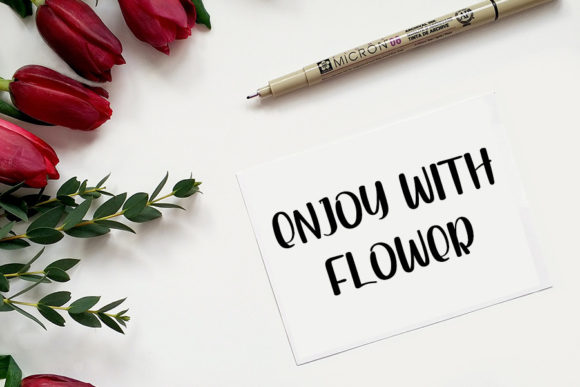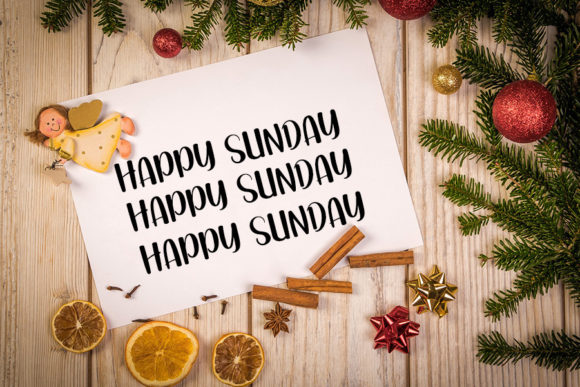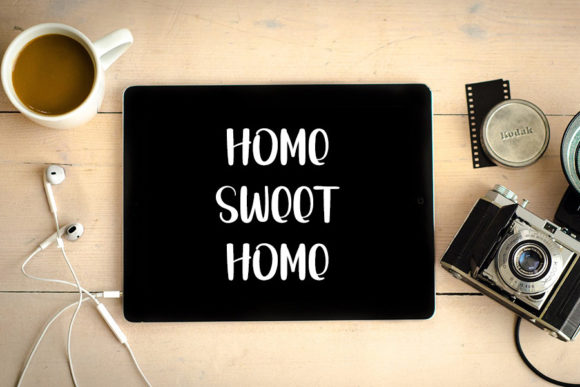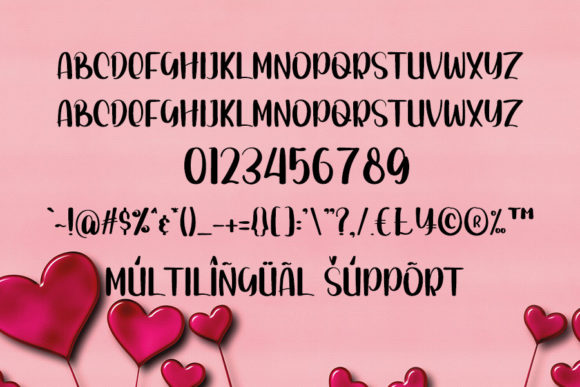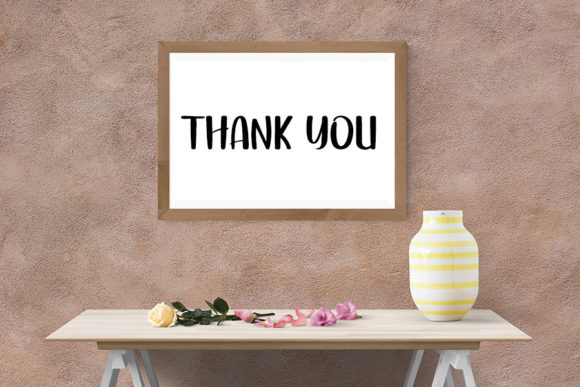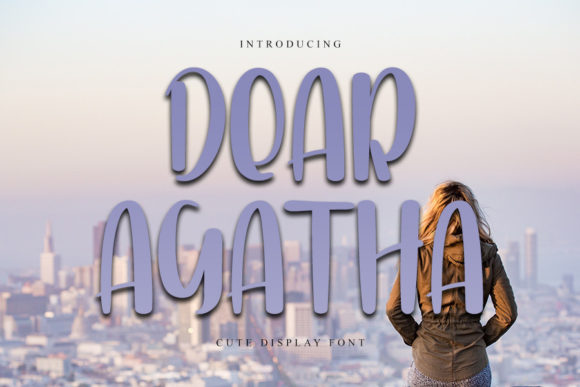
Introducing Dear Agatha Font: The Ultimate Choice for Elegant Designs
Are you a designer or crafter looking for a font that exudes simplicity, cleanliness, and elegance? Look no further than Dear Agatha Font. This beautiful script font is perfect for a wide range of creative projects, from informal designs to formal creations. In this article, we’ll dive into the world of Dear Agatha Font and explore its features, benefits, and uses.
What is Dear Agatha Font?
Dear Agatha Font is a simple and clean script font designed to fit various design needs. Its elegant and flowing strokes make it perfect for creating stunning quotes, logos, card writing, and even wedding invitations. The font’s simplicity is its greatest strength, as it can instantly elevate your designs to look impeccable.
Key Features of Dear Agatha Font
- Simple and Clean Design: Dear Agatha Font boasts a clean and simple design that makes it versatile and easy to use.
- Elegant Script: The font features elegant script strokes that add a touch of sophistication to any design.
- Informal and Formal Use: Dear Agatha Font is suitable for both informal and formal designs, making it a great addition to any design library.
- High-Quality Output: The font is designed to produce high-quality output, ensuring that your designs look crisp and clear.
Benefits of Using Dear Agatha Font
So, why should you choose Dear Agatha Font for your designs? Here are some benefits that make it an excellent choice:
- Easy to Read: The font’s clean design makes it easy to read, even at small sizes.
- Versatile: Dear Agatha Font can be used for a wide range of design projects, from quotes and logos to wedding invitations and more.
- Time-Saving: With Dear Agatha Font, you can create stunning designs in no time, thanks to its simple and elegant design.
- Unique Look: The font’s unique script style will give your designs a distinctive look that sets them apart from others.
Use Cases for Dear Agatha Font
Dear Agatha Font is an incredibly versatile font that can be used for various design projects. Here are some use cases to get you started:
- Quotes and Inspirational Messages: Use Dear Agatha Font to create stunning quotes and inspirational messages that will leave a lasting impression.
- Logos and Branding: The font’s elegant script style makes it perfect for creating logos and branding materials that exude sophistication.
- Wedding Invitations: Dear Agatha Font is an excellent choice for wedding invitations, as it adds a touch of elegance and romance to your designs.
- Card Writing: Use the font to create beautiful card writing designs that will make your recipients feel special.
Tips for Using Dear Agatha Font
To get the most out of Dear Agatha Font, here are some tips to keep in mind:
- Experiment with Sizes: Try out different font sizes to see how Dear Agatha Font looks in various contexts.
- Pair with Other Fonts: Experiment with pairing Dear Agatha Font with other fonts to create unique and interesting combinations.
- Use on Different Backgrounds: Try using Dear Agatha Font on different backgrounds to see how it interacts with various textures and colors.
Dear Agatha Font is a beautiful and versatile script font that is perfect for designers and crafters looking for a simple and elegant design solution. With its clean design, elegant script strokes, and versatility, it’s an excellent choice for a wide range of creative projects. Whether you’re creating quotes, logos, wedding invitations, or card writing designs, Dear Agatha Font is sure to impress. So why wait? Download Dear Agatha Font today and take your designs to the next level!